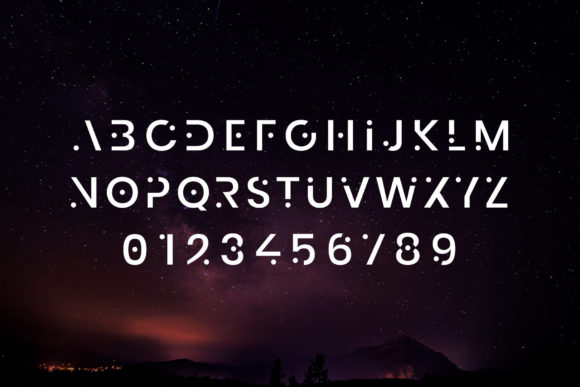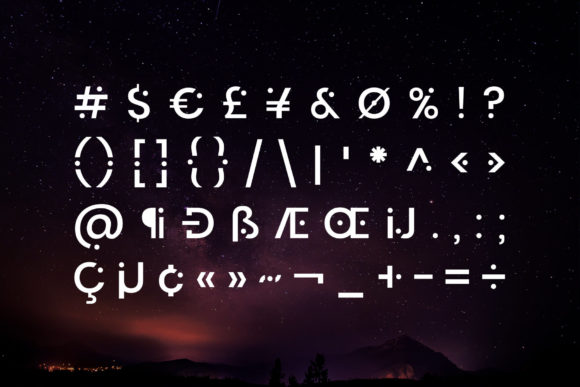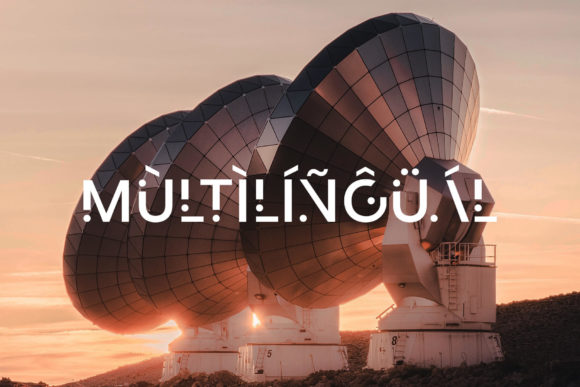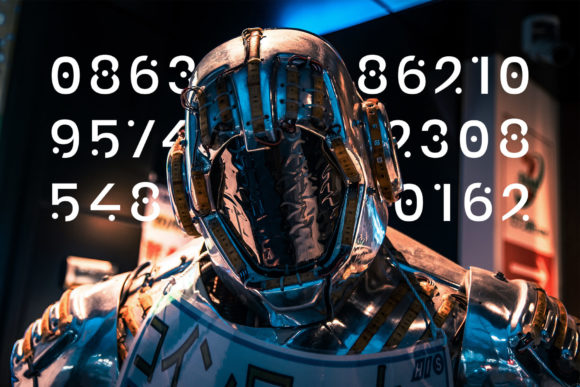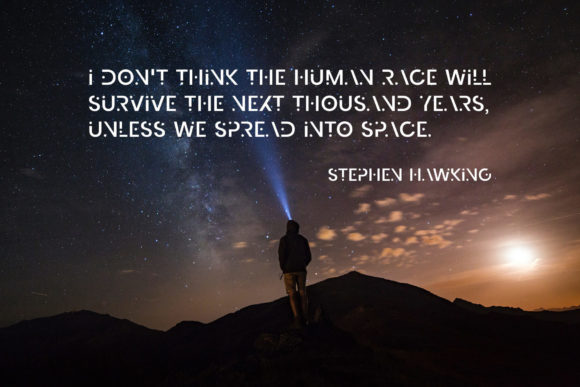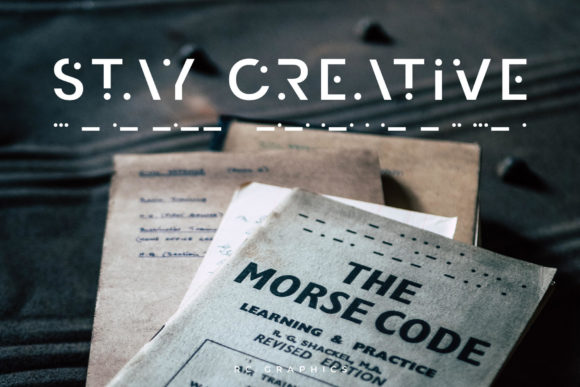
Introducing Ekors Font: The Ultimate Display Font for Creative Minds
Are you tired of using the same old fonts in your designs? Look no further! Ekors Font is here to revolutionize the way you approach typography. This incredibly unique and cool-looking display font is perfect for adding a distinct touch to any creation. Whether you’re a designer, crafter, or simply a creative enthusiast, Ekors Font is sure to spark your imagination and take your projects to the next level.
The Futuristic Charm of Ekors Font
Ekors Font boasts a futuristic aesthetic that is sure to captivate your audience. Its sleek lines, geometric shapes, and avant-garde style make it an ideal choice for projects that require a modern and edgy look. From posters and flyers to logos and branding materials, Ekors Font is the perfect addition to any design that needs a bold and eye-catching touch.
What Makes Ekors Font So Special?
So, what sets Ekors Font apart from other display fonts on the market? Here are just a few reasons why this font is a cut above the rest:
- Unique Design: Ekors Font features a truly one-of-a-kind design that is sure to make your creations stand out from the crowd.
- High Versatility: Whether you’re working on a digital project or a print design, Ekors Font adapts seamlessly to any medium.
- Easy to Read: Despite its futuristic look, Ekors Font remains highly legible, making it perfect for use in a variety of applications.
- Customizable: With Ekors Font, the only limit is your imagination! Experiment with different colors, textures, and effects to create a truly unique look.
Ekors Font is a dream come true for designers and crafters who are looking to add a touch of personality to their work. Whether you’re creating:
- Logos and Branding Materials: Ekors Font is perfect for creating memorable and impactful logos that will help your brand stand out.
- Posters and Flyers: Add a bold and eye-catching touch to your posters and flyers with Ekors Font.
- Digital Art: Ekors Font is a great addition to any digital art piece, from illustrations to graphic designs.
- Crafting Projects: Use Ekors Font to add a personal touch to your crafting projects, from scrapbooking to card making.
Ekors Font is an incredibly unique and cool-looking display font that is sure to add a distinct touch to any creation. With its futuristic charm, high versatility, and ease of use, this font is perfect for designers, crafters, and creative enthusiasts alike. So why wait? Download Ekors Font today and unleash your imagination!